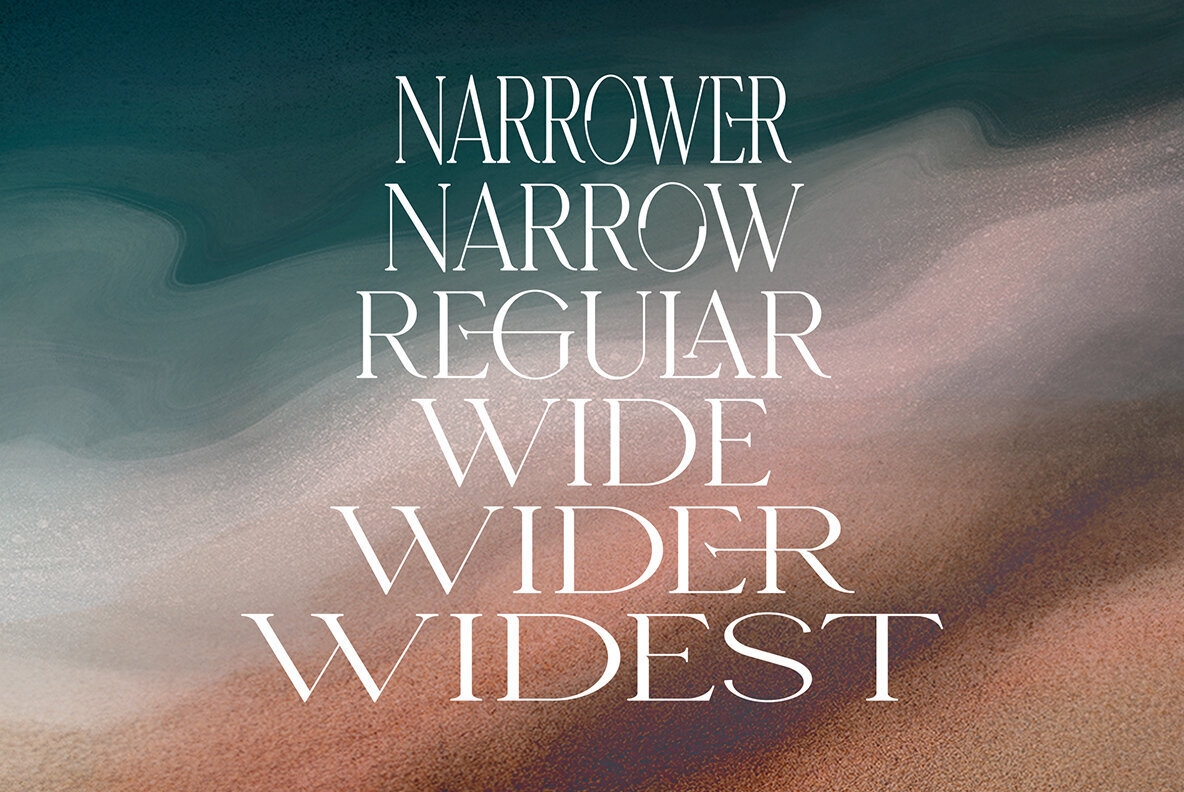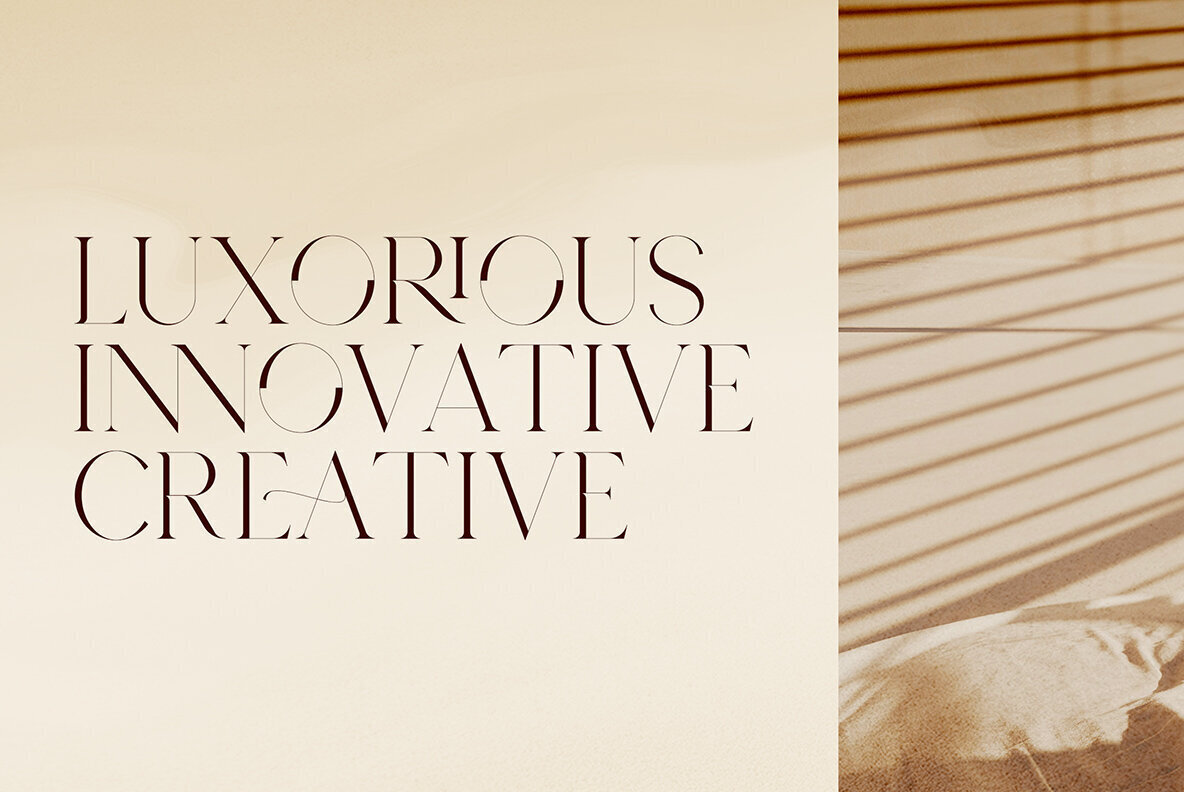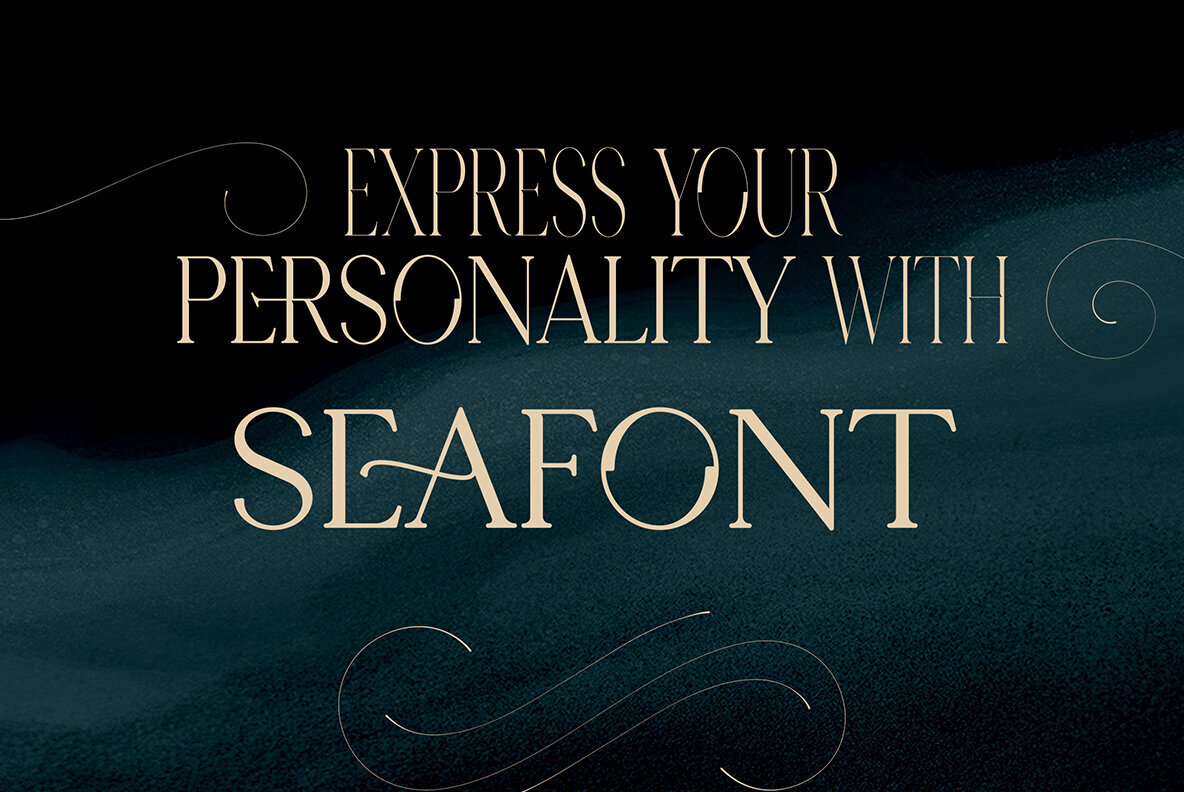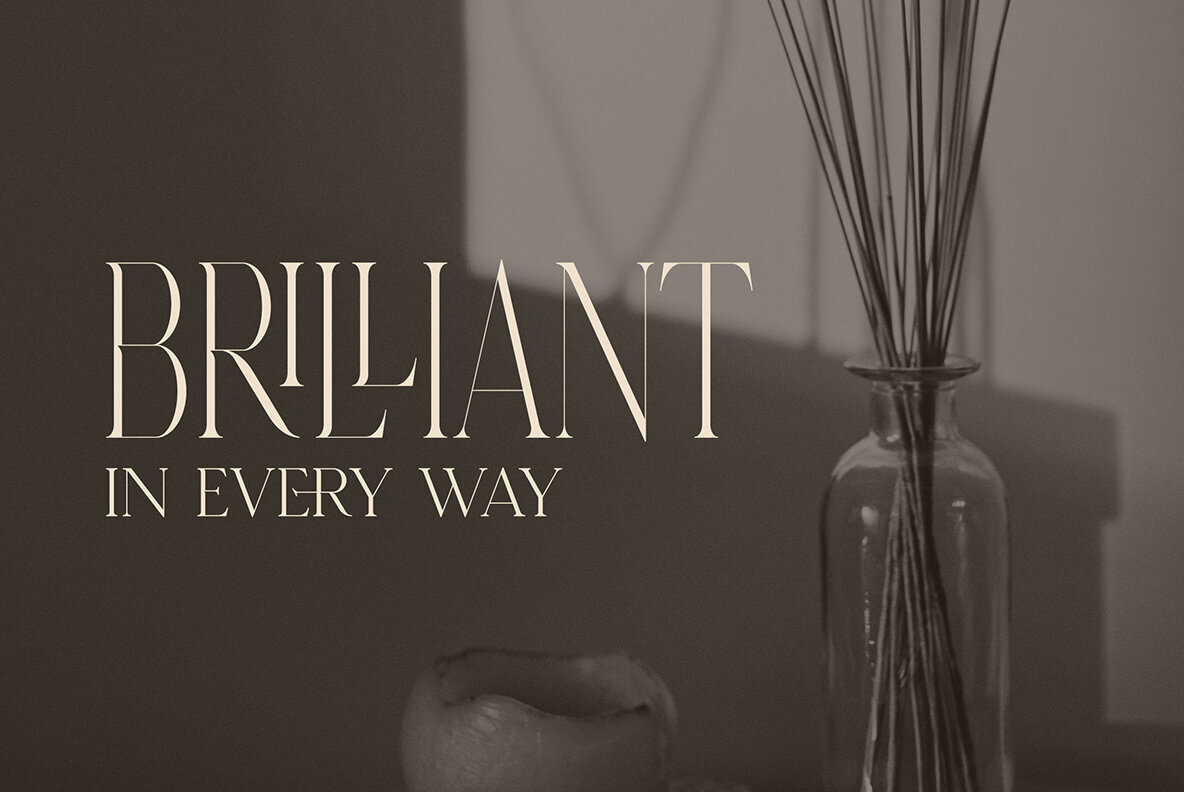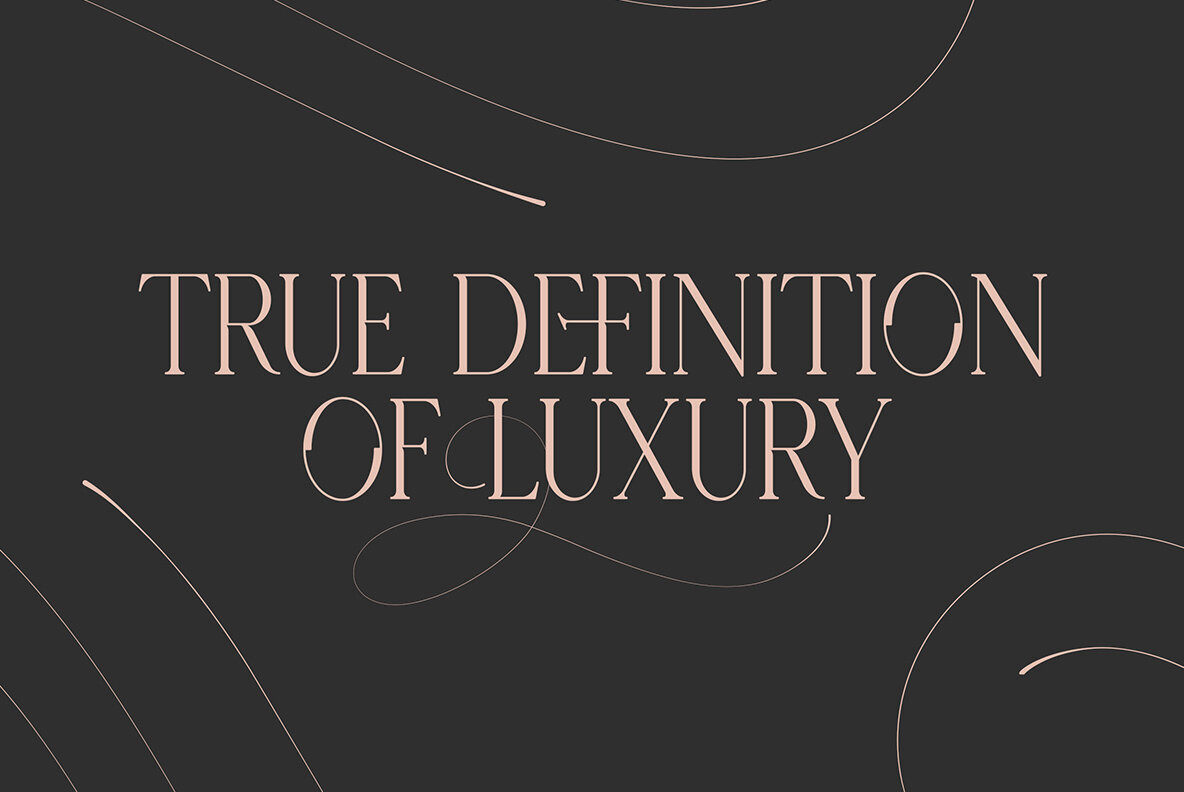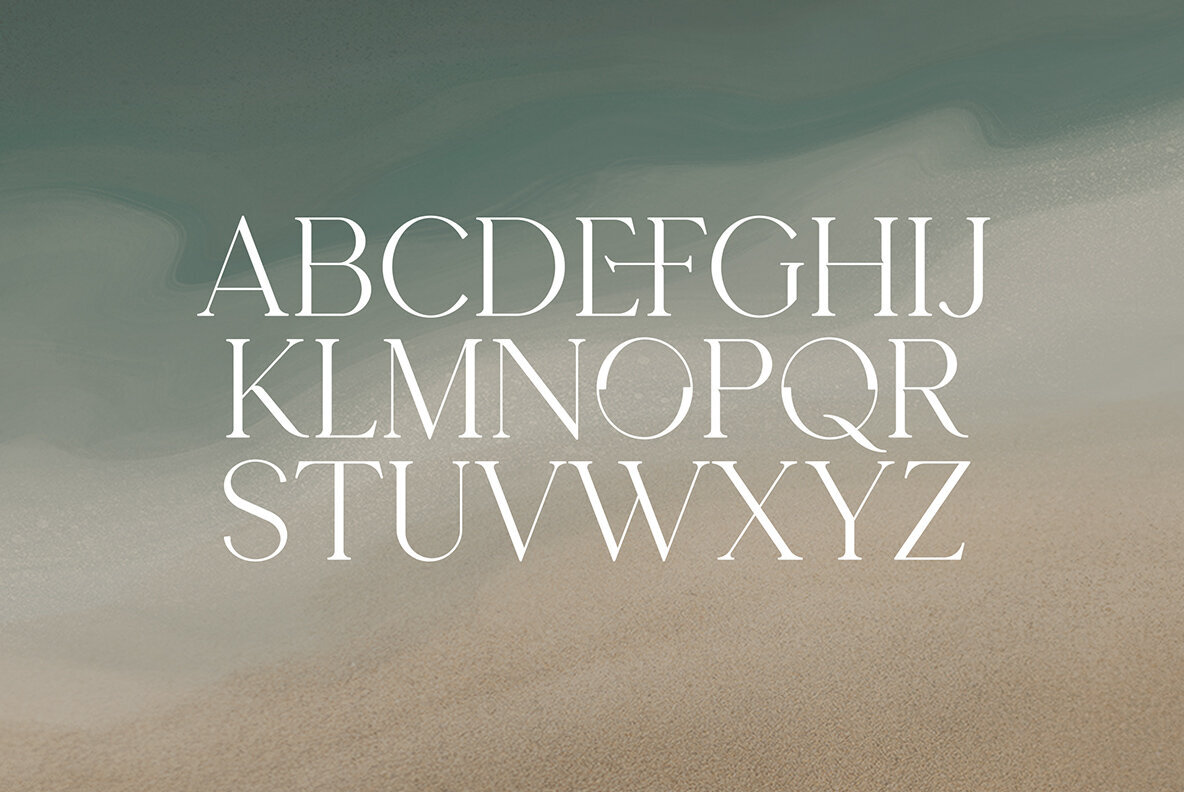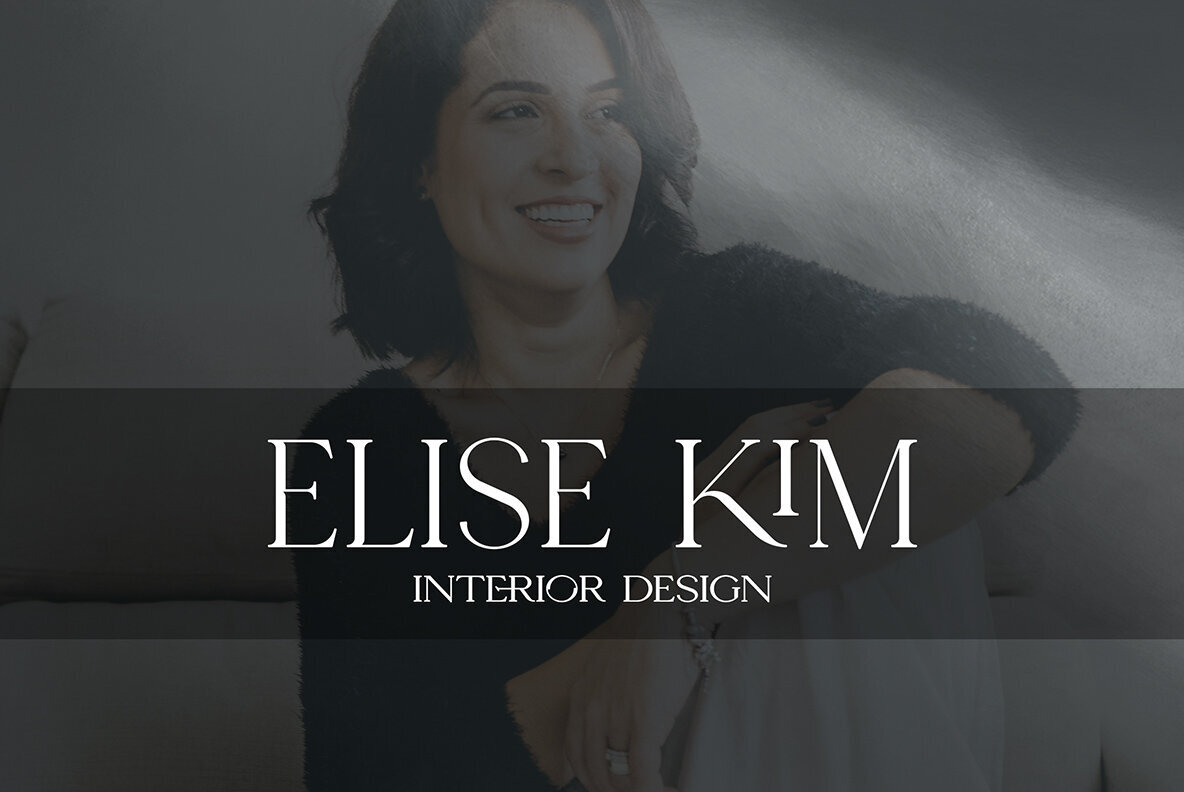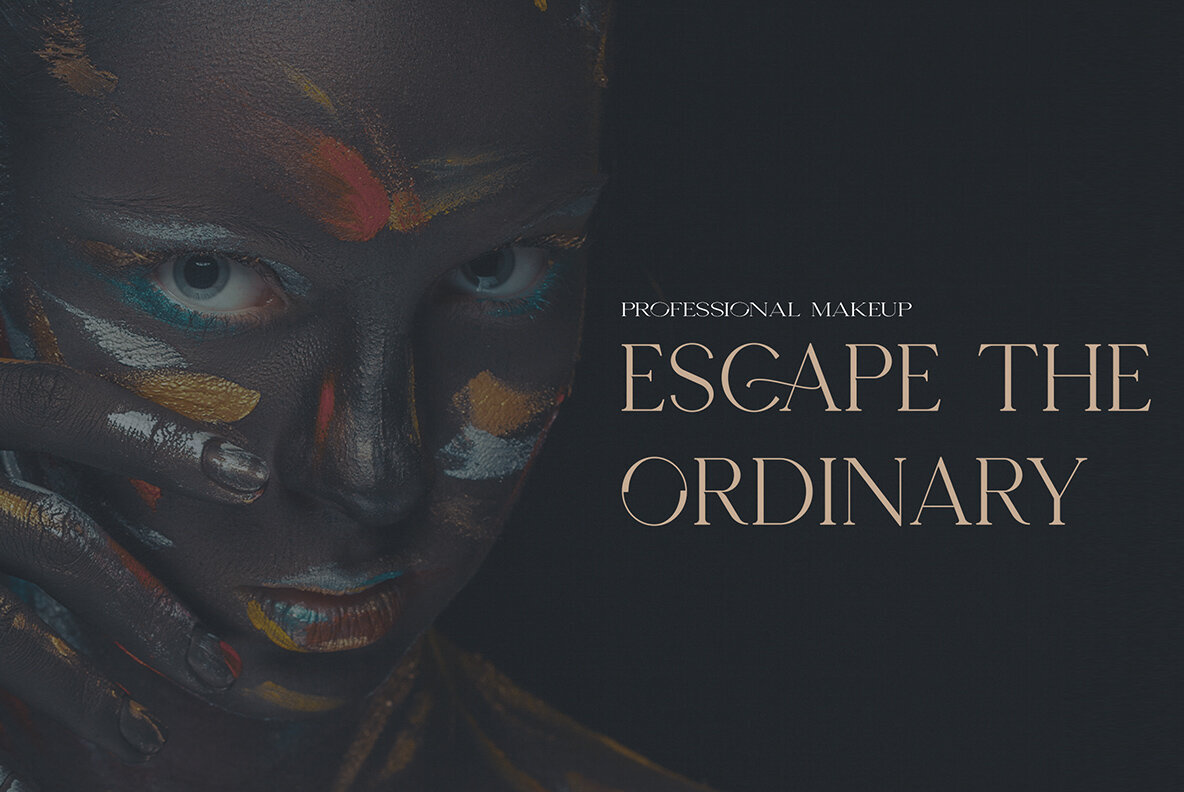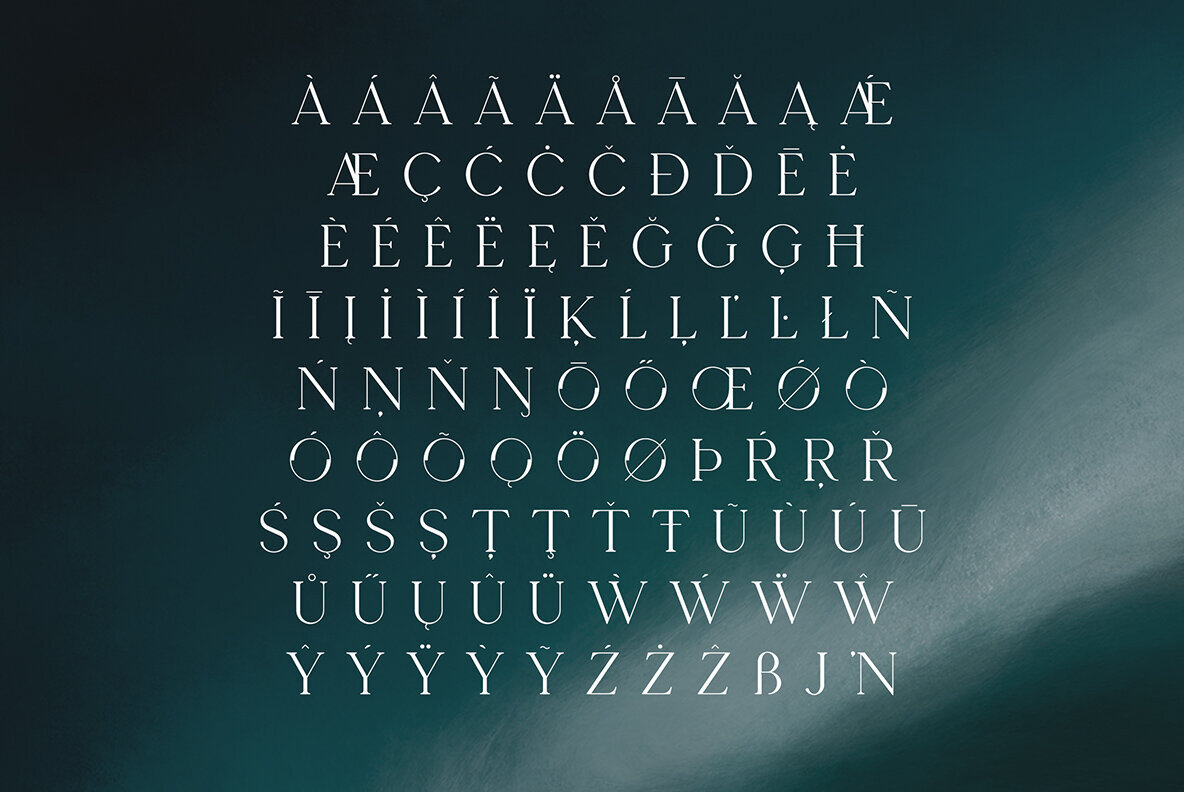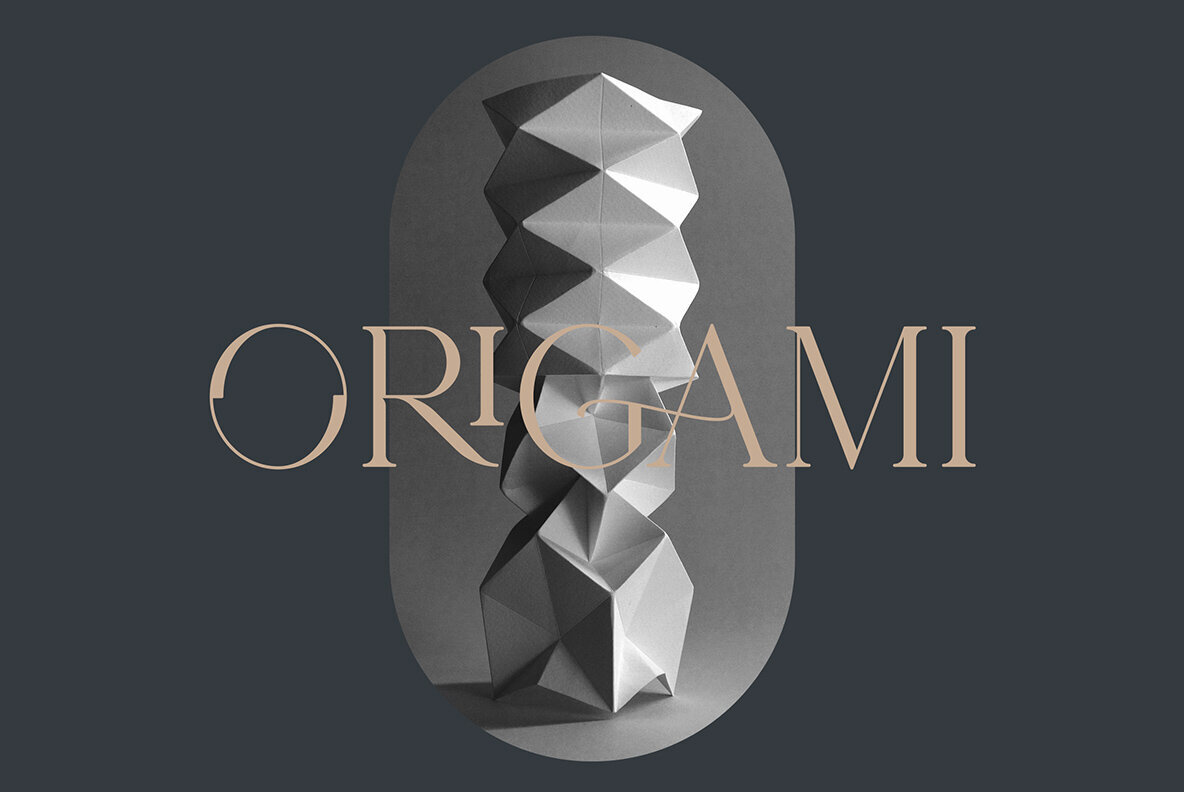
Seafont
Seafont presents itself as a serif typeface of both elegance and perennial appeal, offering a comprehensive package with 24 distinct styles ranging from narrower to widest. Equipped with 26 swashes and a vast array of ligature glyphs, this typeface invites a distinctive flair to any typography project. Supporting an impressive 87 languages, Seafont caters to a global audience. This makes it an ideal choice for those seeking versatility without compromising on style.Seafont: A Sophisticated Serif with Expansive Styles
Immerse your projects in this timeless serif, poised to impart sophistication and global accessibility.